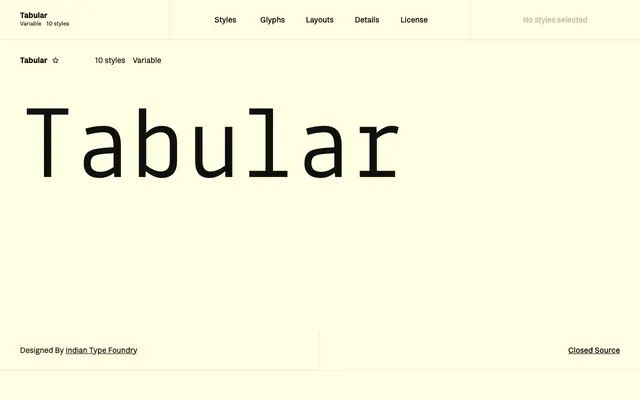
Tabular
A monospaced sans from Indian Type Foundry spanning five weights with italics, built for code display, financial data and onscreen text.
Every glyph shares a fixed advance width, so line length stays constant when switching between weights or italics, a property that makes it genuinely useful for coding environments and financial layouts. Five weights run from Light to Bold, each with a companion italic, and two variable fonts cover the full weight axis. The 135-language Latin coverage and ITF Free Font Licence make it a practical choice for international web and app work.
Every glyph shares the same advance width, making it a true monospaced family; the letterforms are clean and sans-serif in character, positioned explicitly for code display and tabular data.